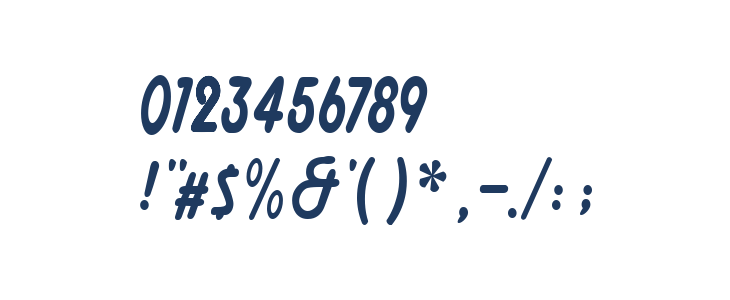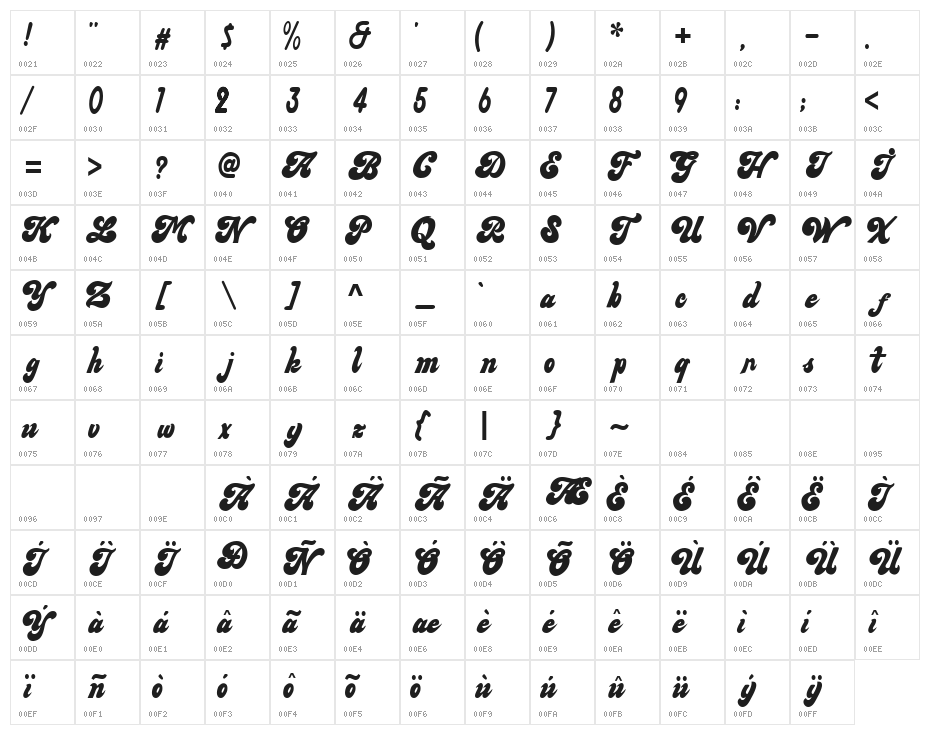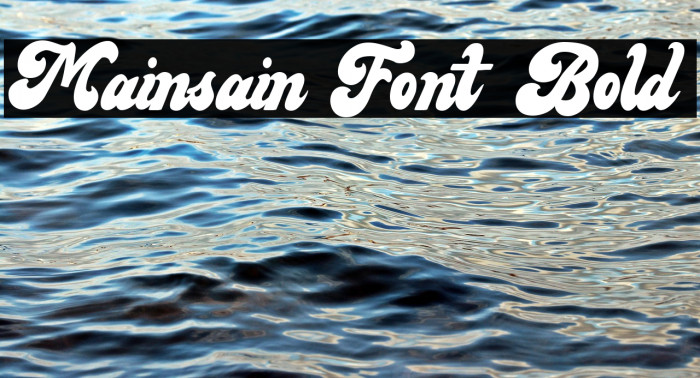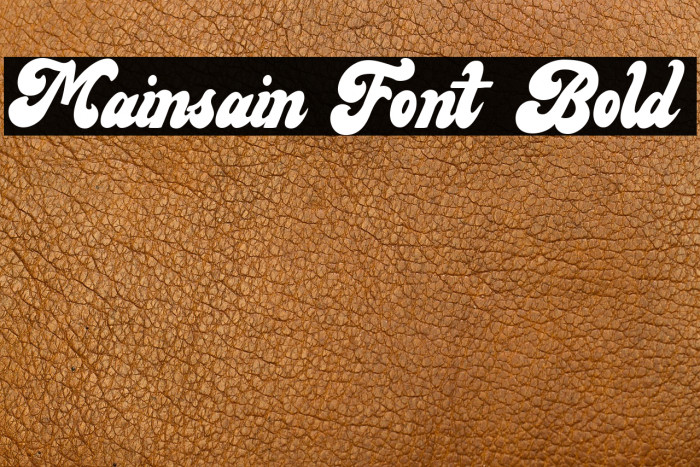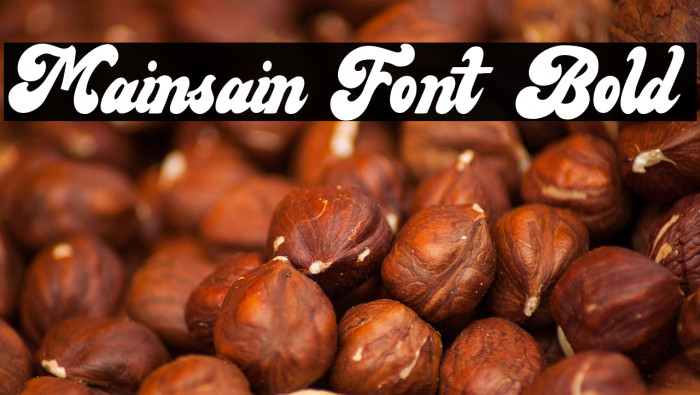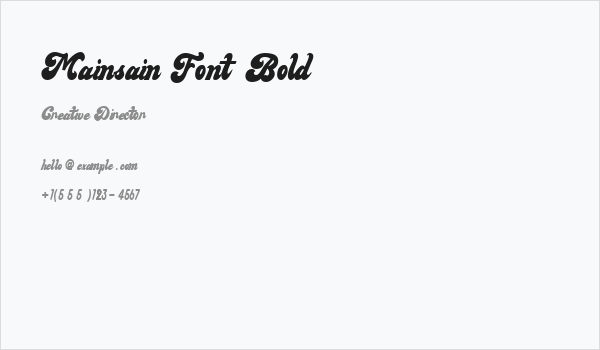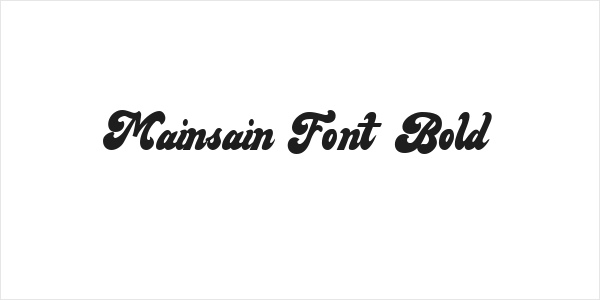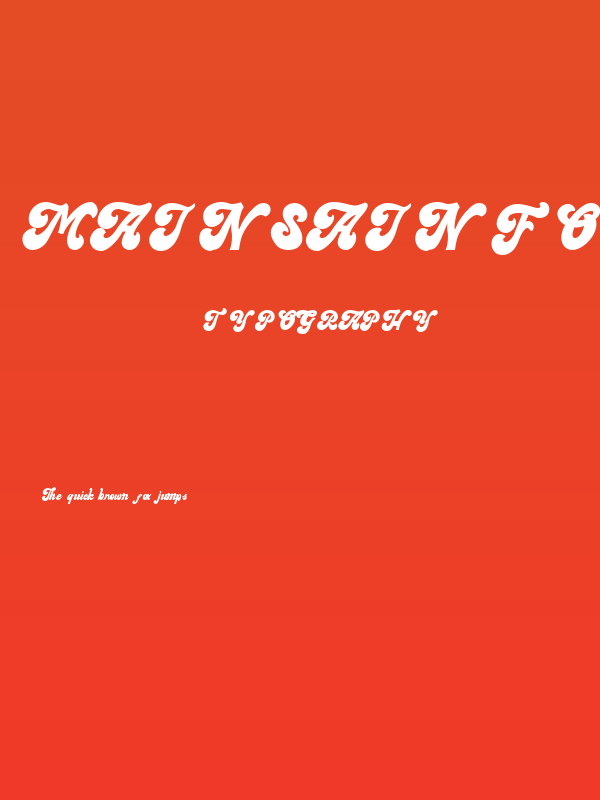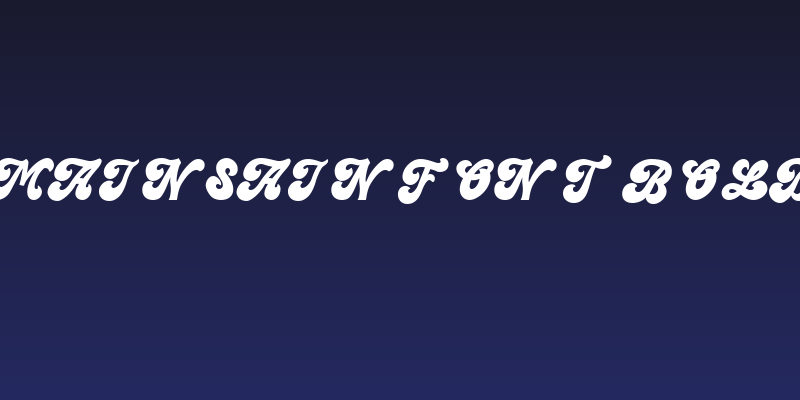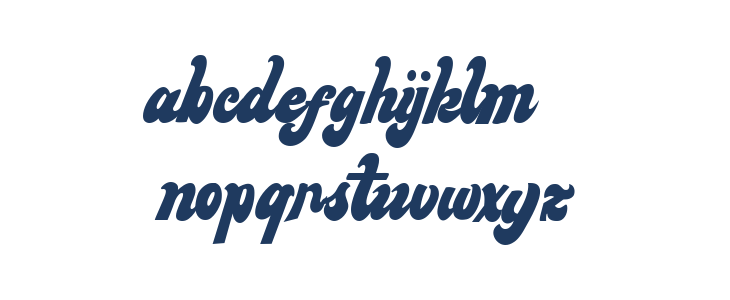
Mainsain Font Bold Font
Mainsain Font Bold Description
This font features a bold and expressive script style with a strong presence. The characters are interconnected, creating a fluid and dynamic appearance. The uppercase letters are particularly ornate, with flourishes that add a sense of elegance and sophistication. The lowercase letters maintain a consistent flow, enhancing readability while preserving the decorative nature. Numbers and special characters are designed to match the overall aesthetic, ensuring a cohesive look across all text elements. The font's bold weight and high contrast in stroke thickness make it stand out, suitable for attention-grabbing designs.
| Proposed Projects | Ideal for branding, logos, invitations, and decorative headlines where a touch of elegance and boldness is desired. |